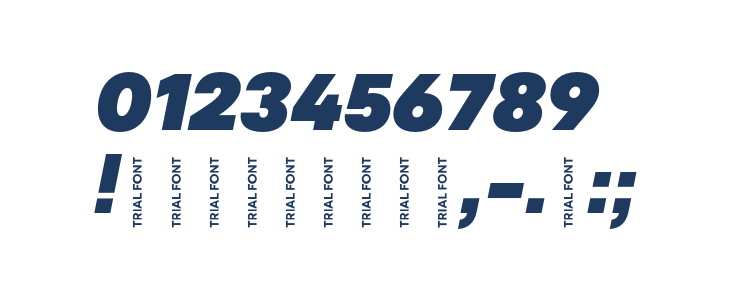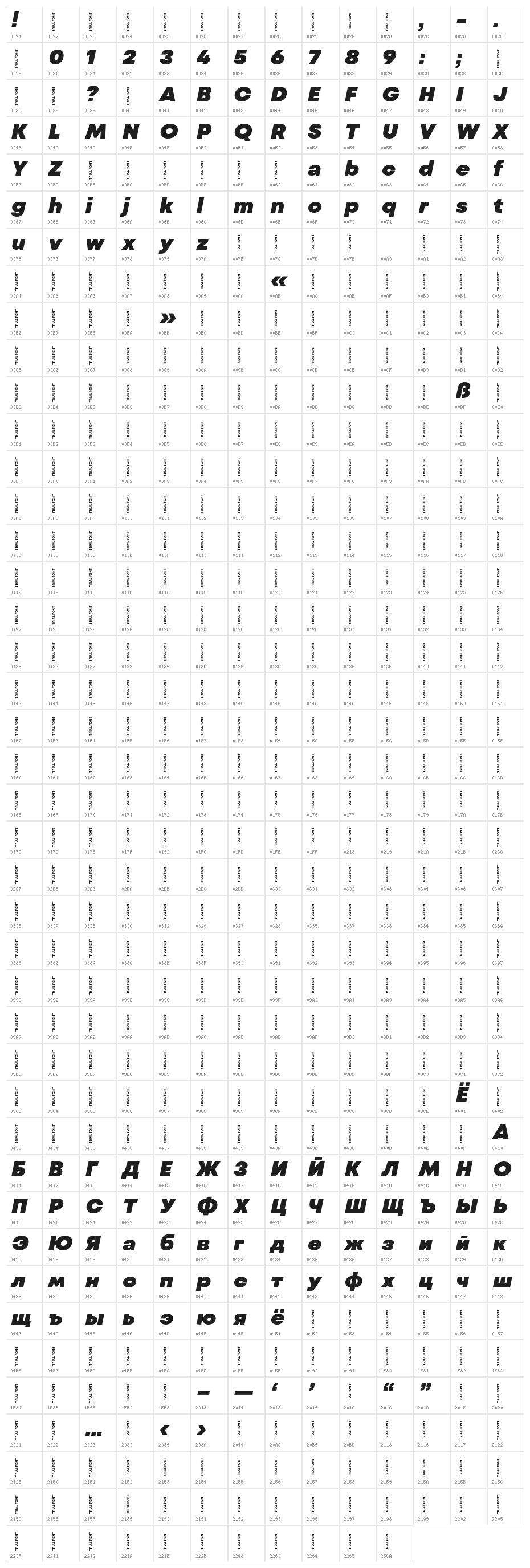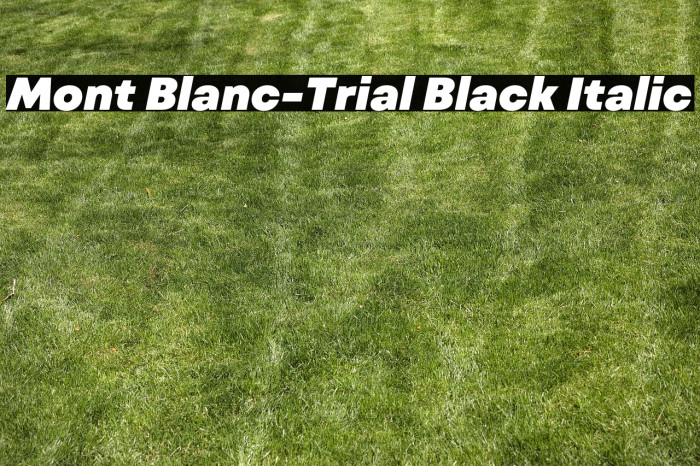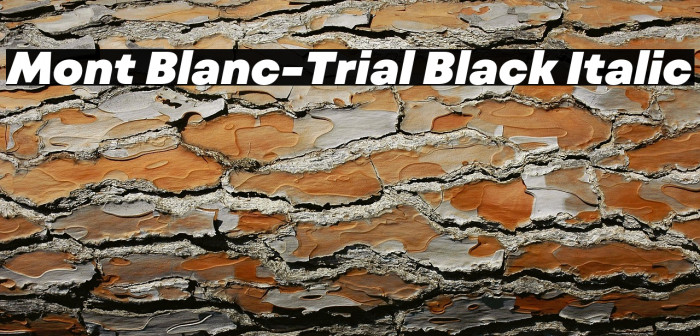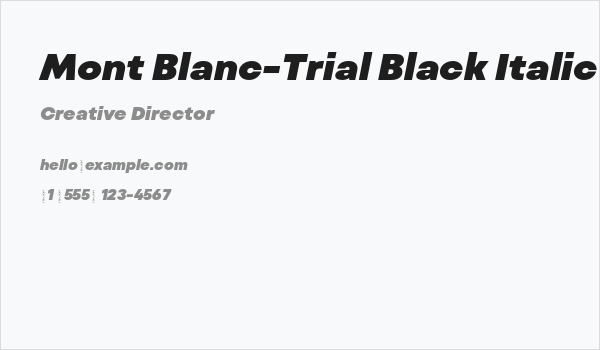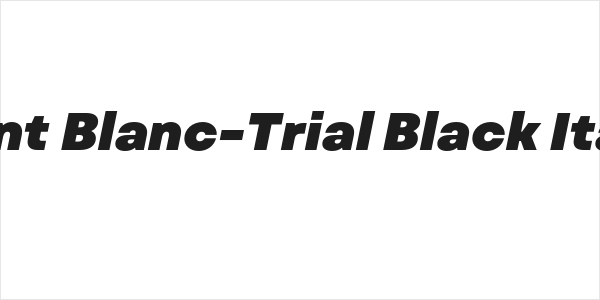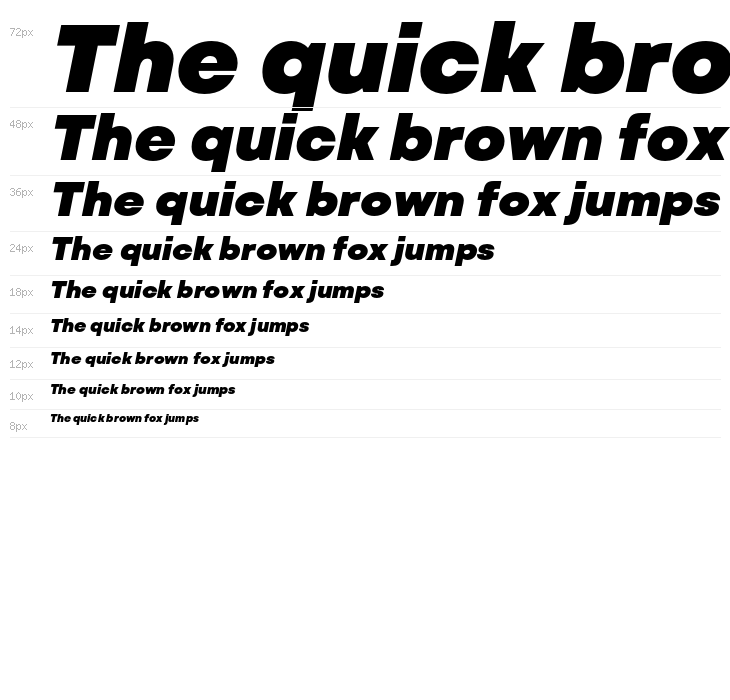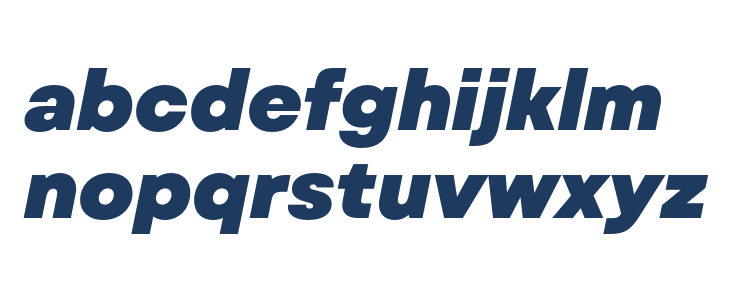
Mont Blanc-Trial Black Italic Font
Mont Blanc-Trial Black Italic Description
This font exhibits a bold and dynamic style with a strong presence. The characters are designed with a slight italic slant, adding a sense of motion and energy. The strokes are thick and consistent, providing a robust and impactful appearance. The uppercase and lowercase letters maintain a uniform width, contributing to a cohesive look. The numerals are equally bold, ensuring readability and emphasis. Special characters are crafted with the same attention to detail, making them stand out effectively. Overall, this font is ideal for making a statement with its bold and modern aesthetic.